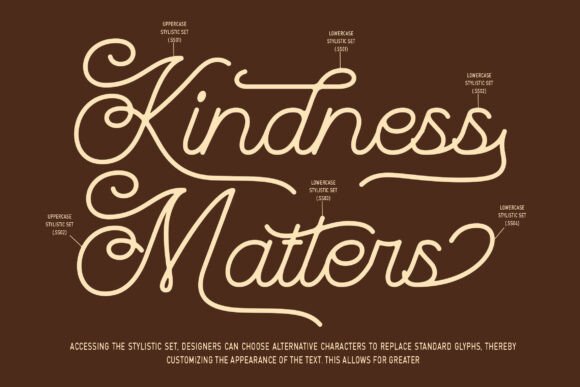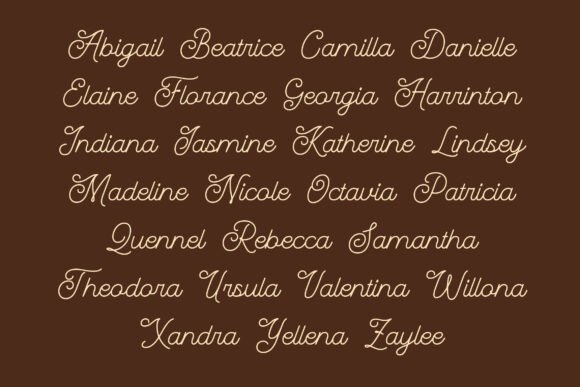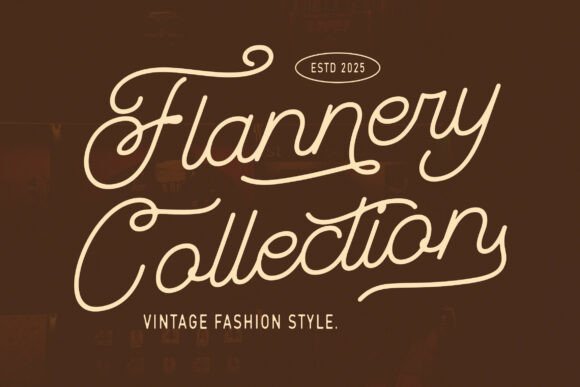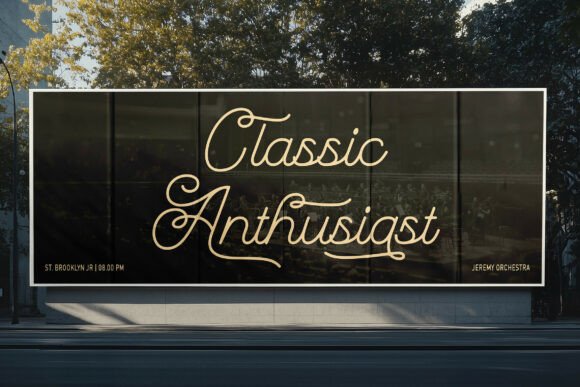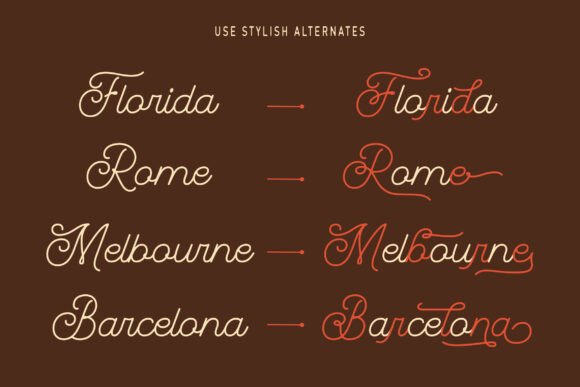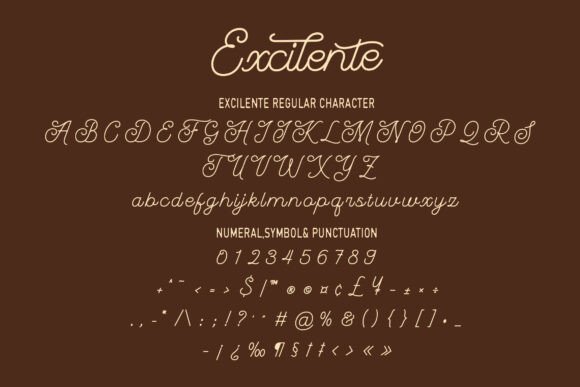
Introducing Excitente Font: Elevate Your Designs with Elegance and Sophistication
In the realm of typography, a font can make or break the visual identity of a design project. For designers and crafters seeking a typeface that exudes style, charm, and readability, Excitente Font is an exceptional choice. Designed by Arendxstudio, Excitente is a stunning monoline script typeface that embodies a modern retro aesthetic, perfect for a wide range of applications, from branding and packaging to posters and logo design.
A Modern Retro Aesthetic with Timeless Appeal
Excitente Font boasts smooth curves and elegant connections, creating a visually appealing and harmonious flow. Its clean, continuous lines not only lend a touch of sophistication but also ensure excellent readability, making it suitable for both display and headline use. Whether you’re aiming to create a vintage-inspired project or seeking a classy handwritten feel, Excitente brings a level of refinement and warmth that elevates your designs.
Key Features of Excitente Font
- Monoline Script Typeface: Excitente features a sleek, monoline design that offers a fresh and contemporary look.
- Smooth Curves and Elegant Connections: The font’s smooth curves and connections create a fluid and natural appearance.
- Modern Retro Aesthetic: Perfect for designs that require a blend of modern and vintage elements.
- Stylistic Alternates: Offers enhanced customization options to adapt to various design needs.
- Multilingual Support: Supports multiple languages, ensuring versatility across different regions and design requirements.
Applications of Excitente Font
Excitente’s versatility makes it an excellent choice for a variety of design projects. Here are some of the areas where this font truly shines:
- Branding: Create a lasting impression with a unique and memorable brand identity.
- Packaging: Add a touch of elegance and sophistication to your product packaging.
- Posters: Design eye-catching posters that communicate your message with style and clarity.
- Logo Design: Craft distinctive and compelling logos that stand out in the market.
Why Choose Excitente Font?
When it comes to selecting a font for your design project, there are several reasons why Excitente stands out:
- Unique Style: Offers a distinctive monoline script style that sets it apart from more traditional typefaces.
- Readability: Ensures clear and easy readability, making it perfect for headlines and display text.
- Customization: Features stylistic alternates that allow for a high degree of customization to fit your design’s specific needs.
- Multilingual Support: A valuable asset for designers working on international projects or with multilingual audiences.
Excitente Font by Arendxstudio is a remarkable addition to the world of typography. Its blend of modernity and elegance, combined with its versatility and readability, makes it an invaluable resource for designers and crafters. Whether you’re looking to create a brand identity, design packaging, or craft compelling posters and logos, Excitente offers the perfect blend of style, sophistication, and functionality. Elevate your designs with Excitente Font and discover the difference it can make in your creative projects.
With Excitente Font, you’re not just choosing a typeface; you’re embracing a design philosophy that values elegance, readability, and creativity. Make your designs stand out with the unique charm and sophistication that Excitente has to offer.